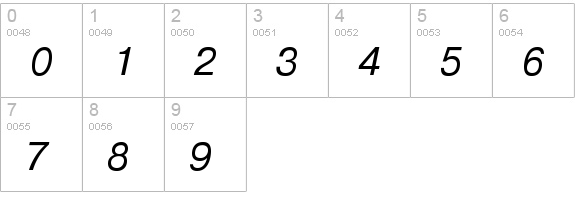
PT Pragmatica Medium Oblique Accented Cyrillic Font Details
PT Pragmatica Medium Oblique Accented Cyrillic is a balanced, medium-weight, italic variant in the PT typeface family \xE2\x80\x94 well suited to sub-headlines, navigation, and balanced editorial work.
PT Pragmatica Medium Oblique Accented Cyrillic font is a versatile and modern typeface designed for various design projects. Its sleek and stylish appearance makes it perfect for branding, advertising, and editorial design. The oblique style adds a dynamic touch to the Cyrillic characters, making them stand out on the page. This font is not only visually appealing but also highly functional, ensuring excellent readability in both print and digital formats. With its elegant design and clean lines, PT Pragmatica Medium Oblique Accented Cyrillic font is sure to elevate any design project. Best of all, this font is available for free download at FontsMarket.com, allowing designers to access this high-quality typeface at no cost. Whether you're working on a personal project or a commercial design, PT Pragmatica Medium Oblique Accented Cyrillic font is a fantastic choice that won't break the bank. Download it today and see how it can enhance your next design endeavor!